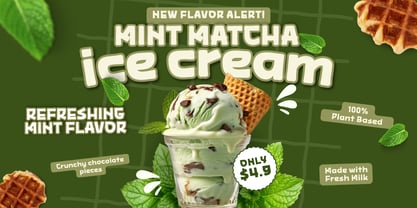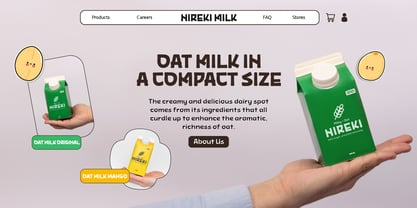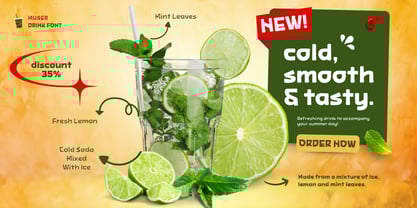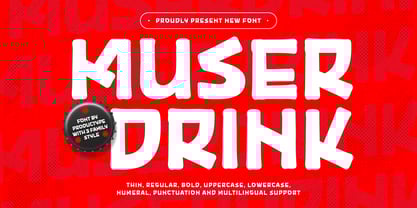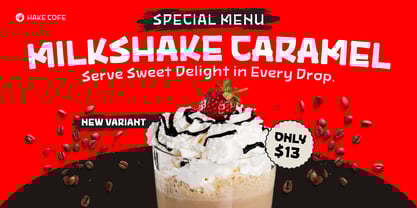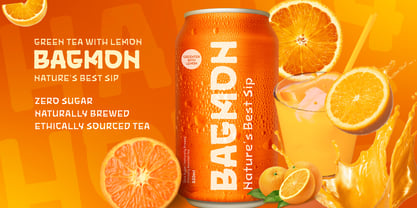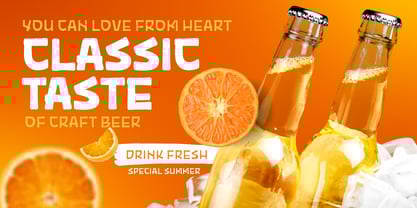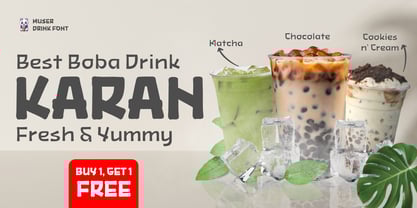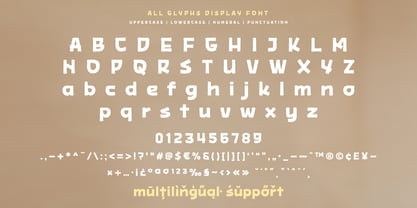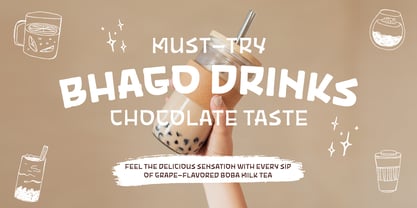
Muser Drink
by Product Type
The Muser Drink Font Family was designed by Lita Faolina and published by Product Type. Muser Drink contains 3 styles and family package options.
Muser Drink – Refreshing Display Font for Summer Beverage Branding
Muser Drink is a bold and playful display font crafted to bring a splash of freshness to beverage branding, especially for summer-themed products. Its fun and chunky letterforms are perfect for juice labels, soda packaging, café menus, and promotional posters that need to stand out.
With three versatile styles (Thin, Regular, Bold), Muser Drink delivers flexibility and a vibrant aesthetic to help your brand pop and attract customers instantly. Whether used for titles, packaging, or social media visuals, this font is the perfect choice for drink brands aiming for a fun, youthful, and energetic identity.
Give your drink brand a bold summer twist with Muser Drink – because great taste deserves eye-catching design!